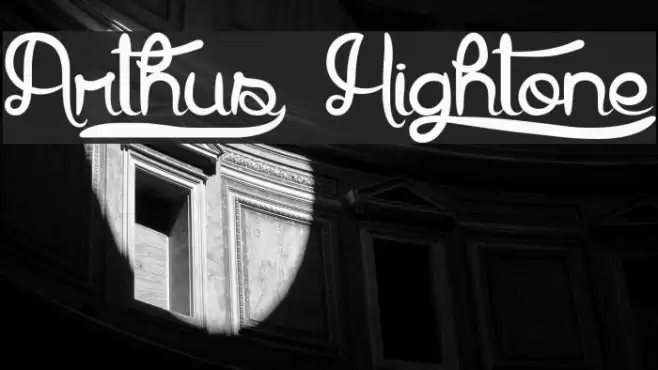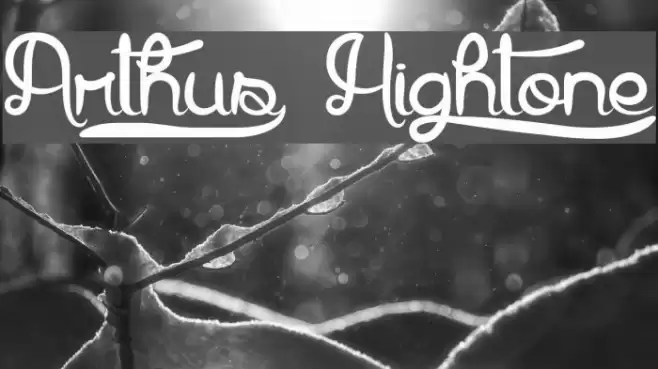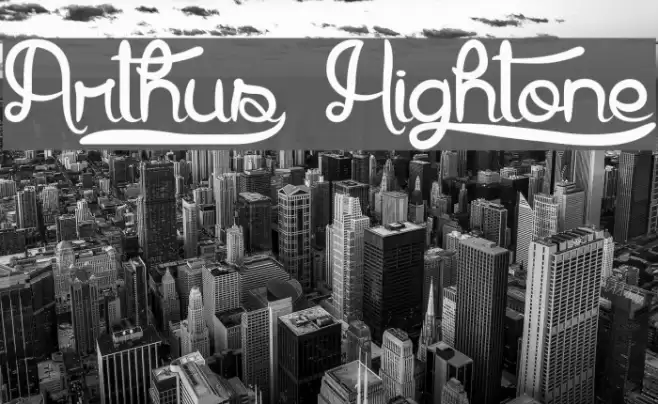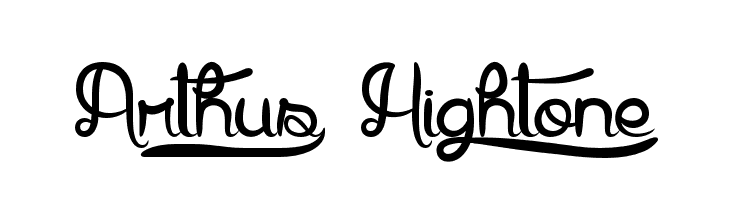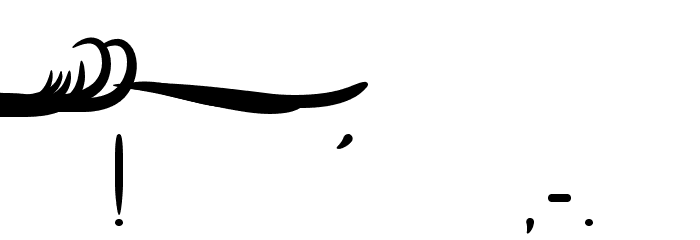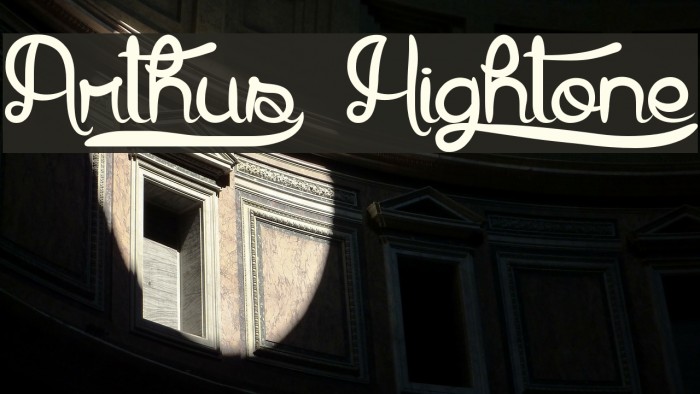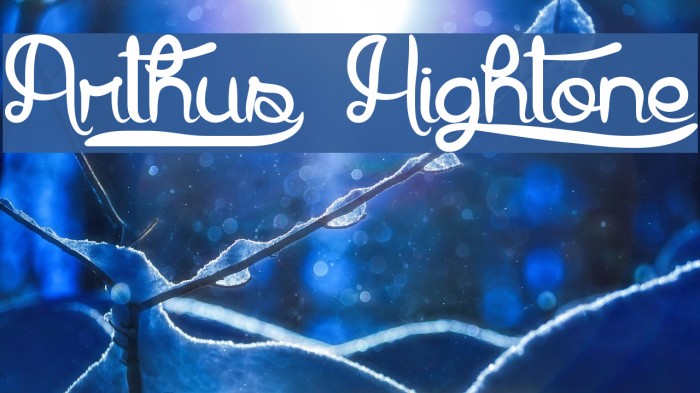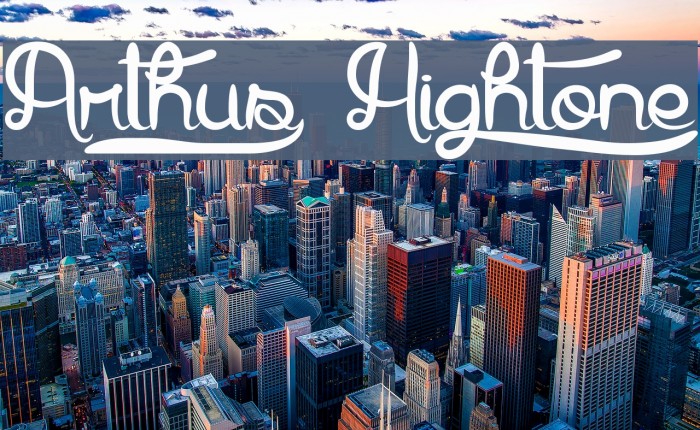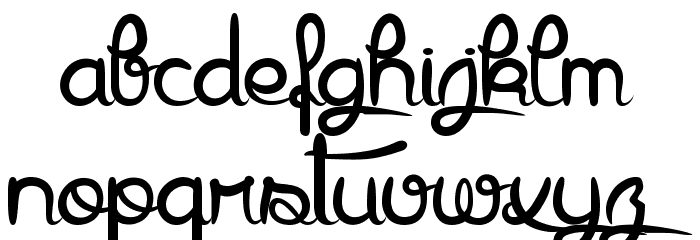
Arthus1 Hig6htone Font
Arthus1 Hig6htone Description
This font features a unique and artistic script style with decorative elements. The uppercase letters are characterized by elegant loops and swirls, giving them a whimsical and playful appearance. The lowercase letters maintain a consistent flow, with some characters extending below the baseline, adding to the font's dynamic nature. The numerals and special characters are designed to match the overall aesthetic, with similar decorative flourishes. This font is ideal for projects that require a touch of creativity and elegance.
A decorative script font with whimsical loops and swirls from Uncategorized fonts.
- Proposed Projects: Ideal for wedding invitations, greeting cards, artistic posters, and branding materials that require a creative and elegant touch.
- Use Case: Logos, Headlines, Artistic projects